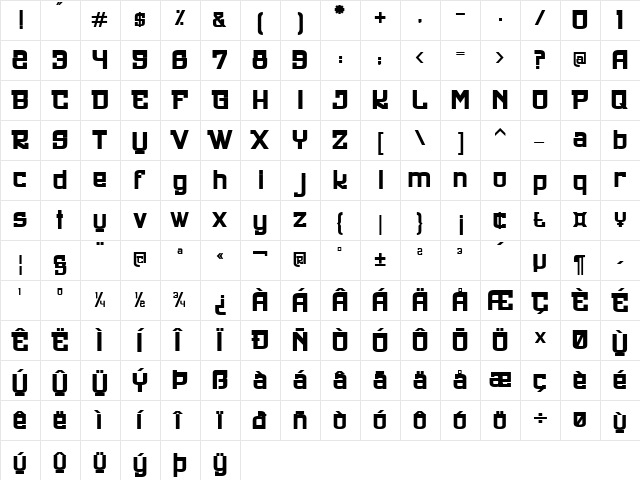
UltraStyle1312 Regular
| Foundry | Jaime Ignacio CompeᮠDolphyn |
| Designer | Jaime Ignacio CompeᮠDolphyn |
Design Context for UltraStyle1312 Typeface
UltraStyle1312 is a composed and adaptable typeface that performs quietly and consistently across a wide range of design contexts.